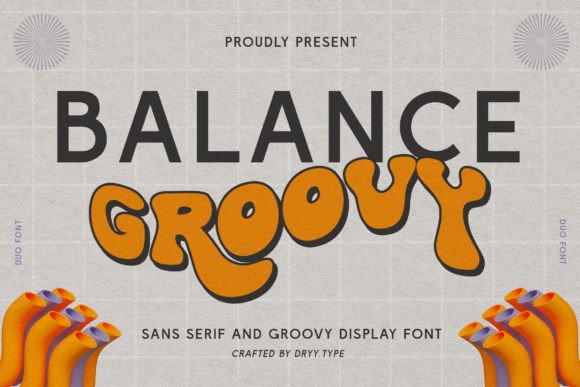
Introducing Balance Groovy Font, the ultimate choice for those seeking the best fonts to use for branding. Created by Dryy.type, this quirky and distinctive display font will transport you back to the vibrant era of the 1980s. With its bold lettering and unique design, it effortlessly exudes a sense of energy and fun that is unmatched by any other font in its class.
What sets Balance Groovy apart from the rest is its mesmerizing neon colors and futuristic style. Each character pulsates with a touch of nostalgia, making it the perfect choice for anyone looking to add a retro and vibrant touch to their projects. Whether you're designing posters, album covers, or any other creative endeavor, this font will surely make a lasting impression.
But what truly sets Balance Groovy apart is its versatility. Its PUA encoding allows for easy access to a wide range of amazing glyphs and ligatures, giving you the freedom to create unique and captivating designs. Say goodbye to limitations and hello to endless possibilities.
Immerse yourself in the world of Balance Groovy Font and let your creativity soar. Channel the spirit of the 1980s and captivate your audience with fonts that truly speak to them. Whether you're a seasoned designer or just starting out, this font is guaranteed to elevate your work to new heights.
With Balance Groovy Font, your designs will transcend the ordinary and leave a lasting impression on anyone who lays eyes on them. Dare to be different, embrace the vibrant energy of the 1980s, and let Balance Groovy Font be the driving force behind your creative success.